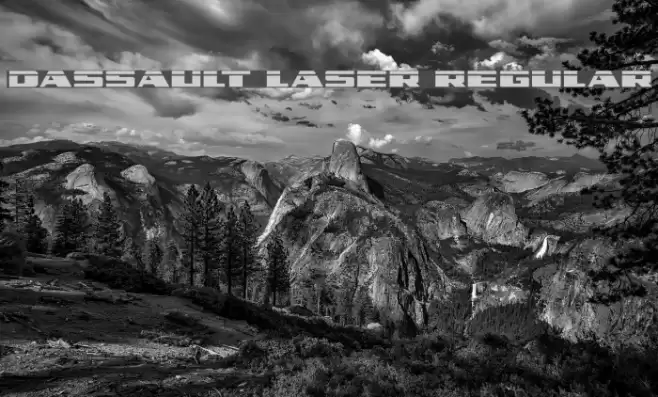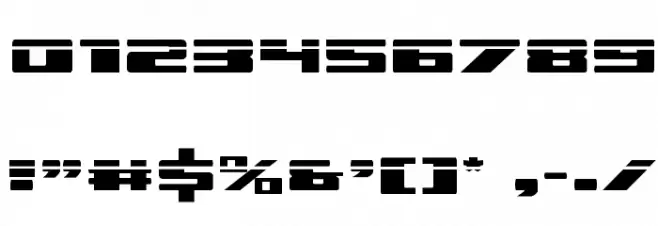
Dassault Laser Regular Font
Dassault Laser Regular Description
This font features a bold and futuristic design with a strong geometric influence. The characters are constructed with sharp angles and straight lines, giving it a mechanical and industrial feel. The uppercase letters are particularly striking, with a blocky appearance that suggests strength and stability. The numerals and special characters maintain this robust style, ensuring consistency across all glyphs. This font is ideal for projects that require a modern and edgy look, such as technology branding or sci-fi themed designs.
A bold, geometric font with a futuristic and industrial style from Uncategorized fonts.
- Proposed Projects: Ideal for technology branding, sci-fi themed designs, video game titles, and modern advertising.